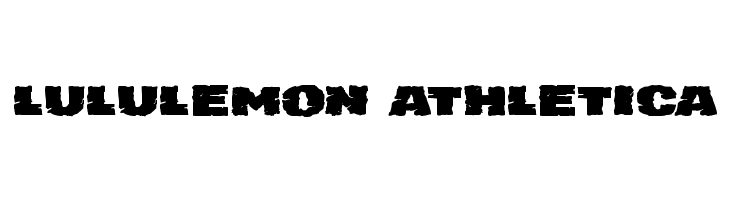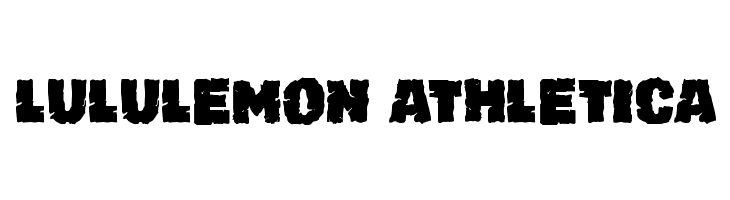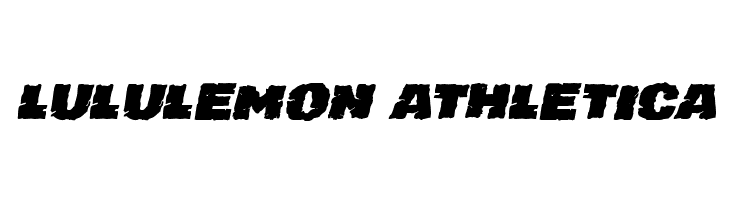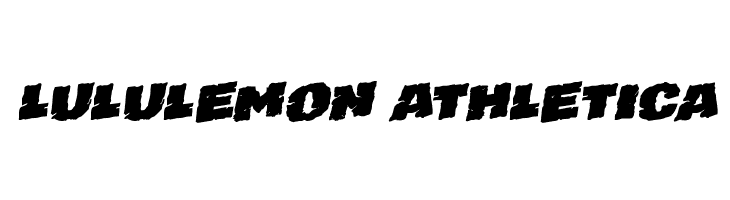
• Jugger Rock
A bold, distressed font with a rugged and impactful design.
• Jugger Rock Condensed
A bold, rugged, and distressed font with a rock-like, condensed style.
• Jugger Rock Condensed Italic
A bold, condensed, and italicized font with a rugged, rock-like texture.
• Jugger Rock Expanded
A bold, rugged font with a distressed, textured appearance and expanded width.
• Jugger Rock Expanded Italic
A bold, rugged, and textured font with an expanded and italicized style.
• Jugger Rock Italic
A bold, distressed, and italicized font with a rugged, energetic style.
• Jugger Rock Rotalic
A bold, textured, and italicized font with a rugged, rock-like appearance.
• Jugger Rock Rotated
A bold, rugged font with a distressed, rock-like texture.
• Jugger Rock Rotated 2
A bold, rugged font with a distressed, rock-like texture.
• Jugger Rock Shadow
A bold, rugged font with a textured, stone-like appearance and shadowed outlines.
• Jugger Rock Staggered
A bold, rugged font with a distressed, textured appearance.
• Jugger Rock Staggered Italic
A bold, rugged, and staggered italic font with a distressed texture.
• Jugger Rock Staggered Rotalic
A bold, rugged font with a staggered, rock-like texture and dynamic style.
• Jugger Rock Staggered Rotated
A bold, rugged font with a distressed, textured appearance.